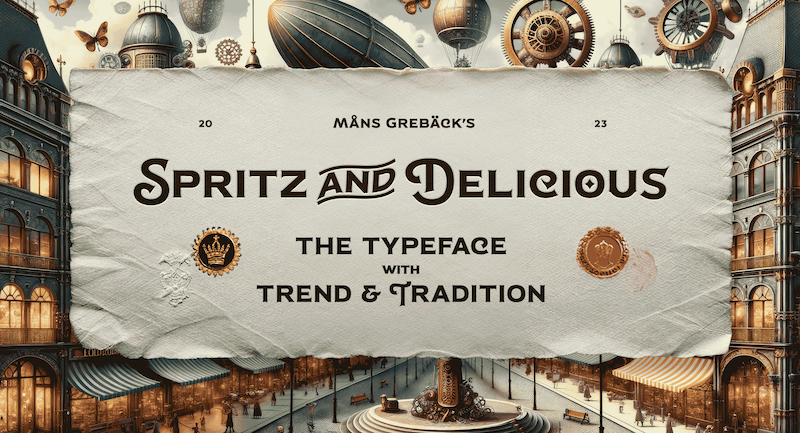
Preview and download Spritz And Delicious Font. Created by Måns Grebäck in Fancy Retro styles with Free for personal use license.
NOTE: This font is for PERSONAL USE ONLY! To purchase a commercial license, visit: http://mn.sg/spritz-and-delicious Spritz And Delicious is a modern typeface with a traditional heritage. Captivating and blending the ruggedness of a saloon's wooden sign and the elegance of a Victorian tea room's menu, Spritz And Delicious is a typeface where the subtle hint of serifs adds a unique flavor. Perfect for a New Year's invitation or any classy event. For questions, please visit www.mansgreback.com/faq |